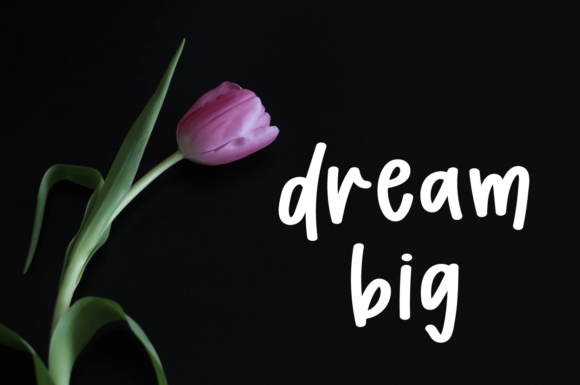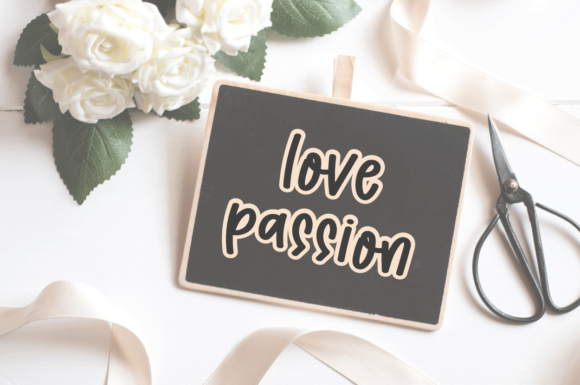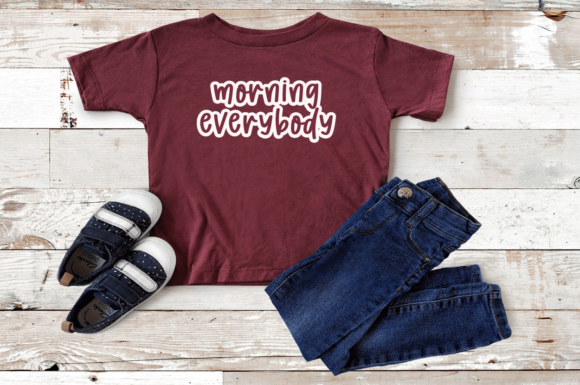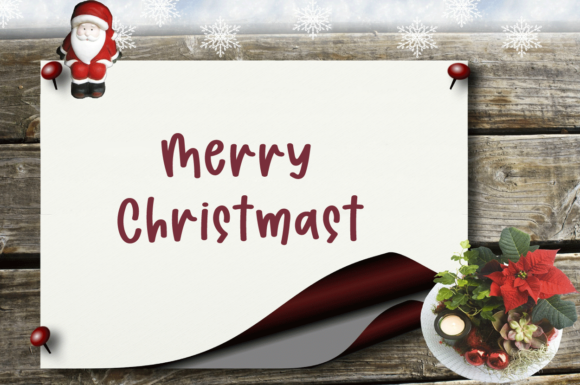
Introduction to Hey Felix Font
As designers, we’ve all been there – staring at a blank page, trying to bring a creative project to life. But sometimes, all it takes is the perfect font to spark inspiration. That’s where the Hey Felix Font comes in – a fresh and simple handwritten font that’s about to become your new go-to design resource.
Whether you’re crafting a beautiful invitation, designing a branding material, or creating a stunning poster, the Hey Felix Font is the perfect companion to elevate your creative vision. Its unique, hand-drawn style makes it a standout choice for any project, and its transparent background allows for seamless integration with your design.
Key Features of Hey Felix Font
- High-quality font with a transparent background, perfect for creative projects that require a clean and modern look.
- Includes 6 styles: Light, Regular, Medium, Bold, Extra Bold, and Outline, providing versatility for various design needs.
- Designed with a unique, modern aesthetic, making it an excellent choice for creative projects that require a distinctive look.
Honest Review: Hey Felix Font
I recently had the chance to work with the Hey Felix Font, and I must say, it’s been a delightful experience. The font is perfect for creative projects that require a touch of elegance and sophistication.
- High-quality design: The Hey Felix Font is meticulously crafted, making it perfect for high-end creative projects.
- Transparent background: This feature allows for seamless integration with other design elements, making it a versatile choice for designers.
- ⚠️ Limited font styles: While the font is elegant, it’s available in only a few styles, which might not be ideal for projects that require a wide range of font options.
Overall, I’m impressed with the Hey Felix Font. It’s a great resource for designers looking for a high-quality, elegant font for their creative projects. I would definitely recommend it to anyone looking for a reliable design resource.
Hey Felix Font
Hey Felix Font is perfect for a variety of creative projects, including: branding and logos, presentations and documents, and social media graphics. Its high-quality design and transparent background make it a great choice for any project.